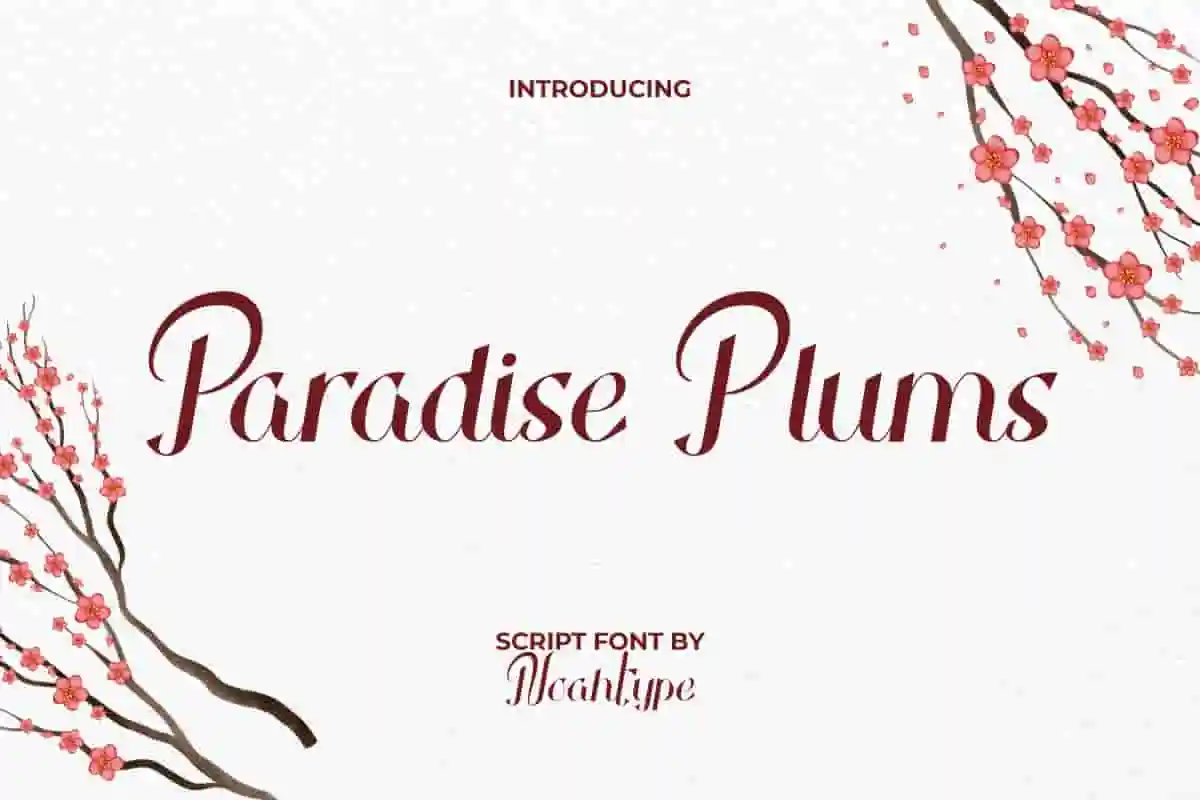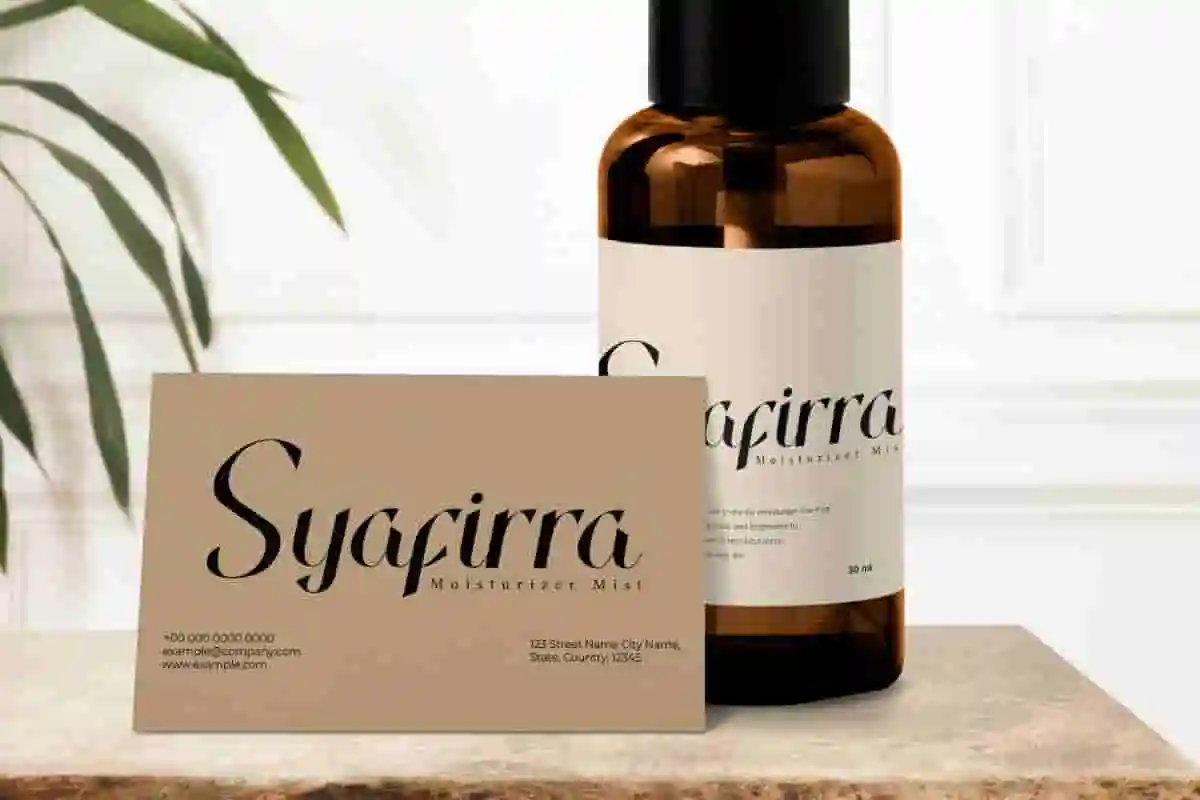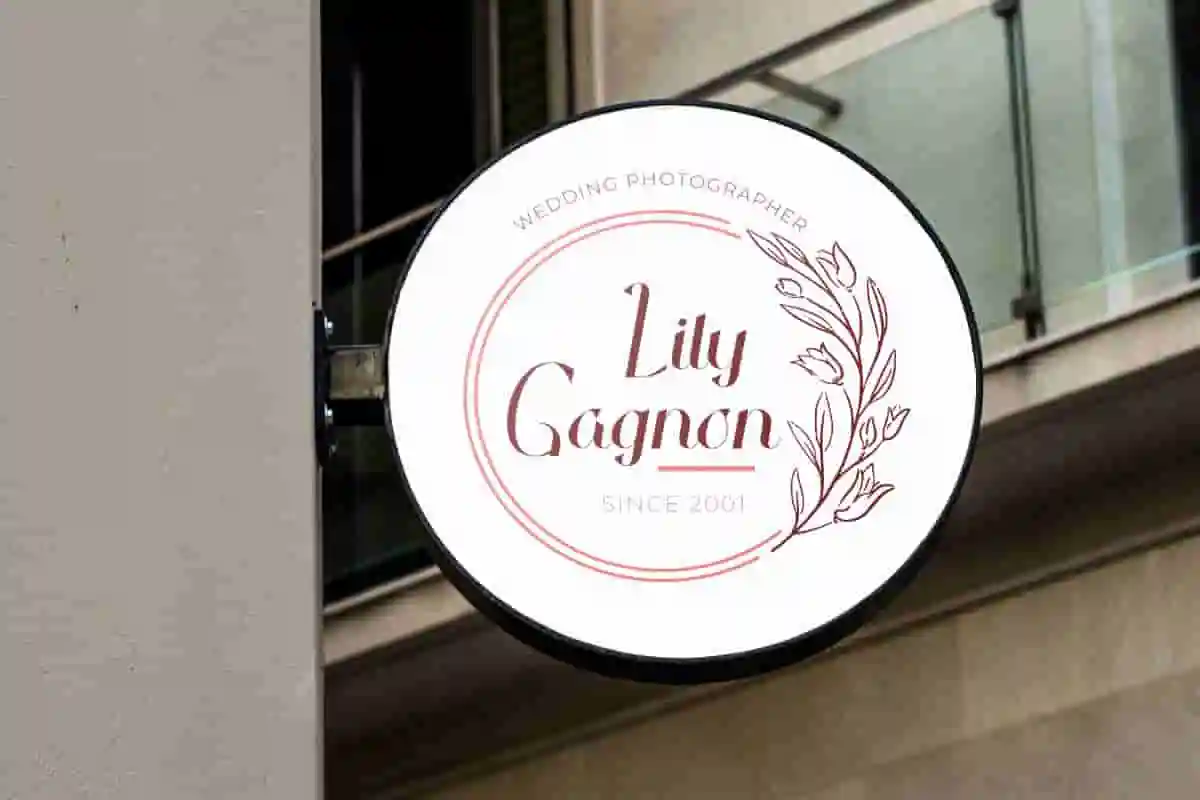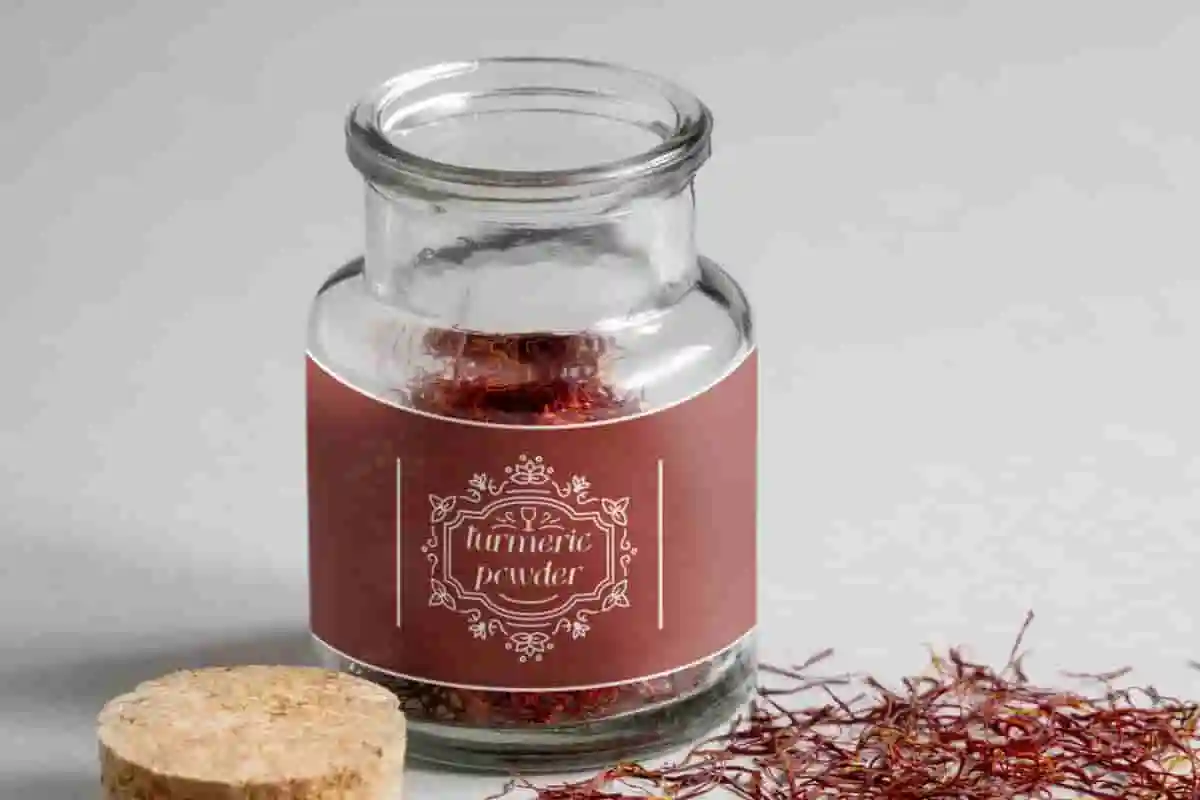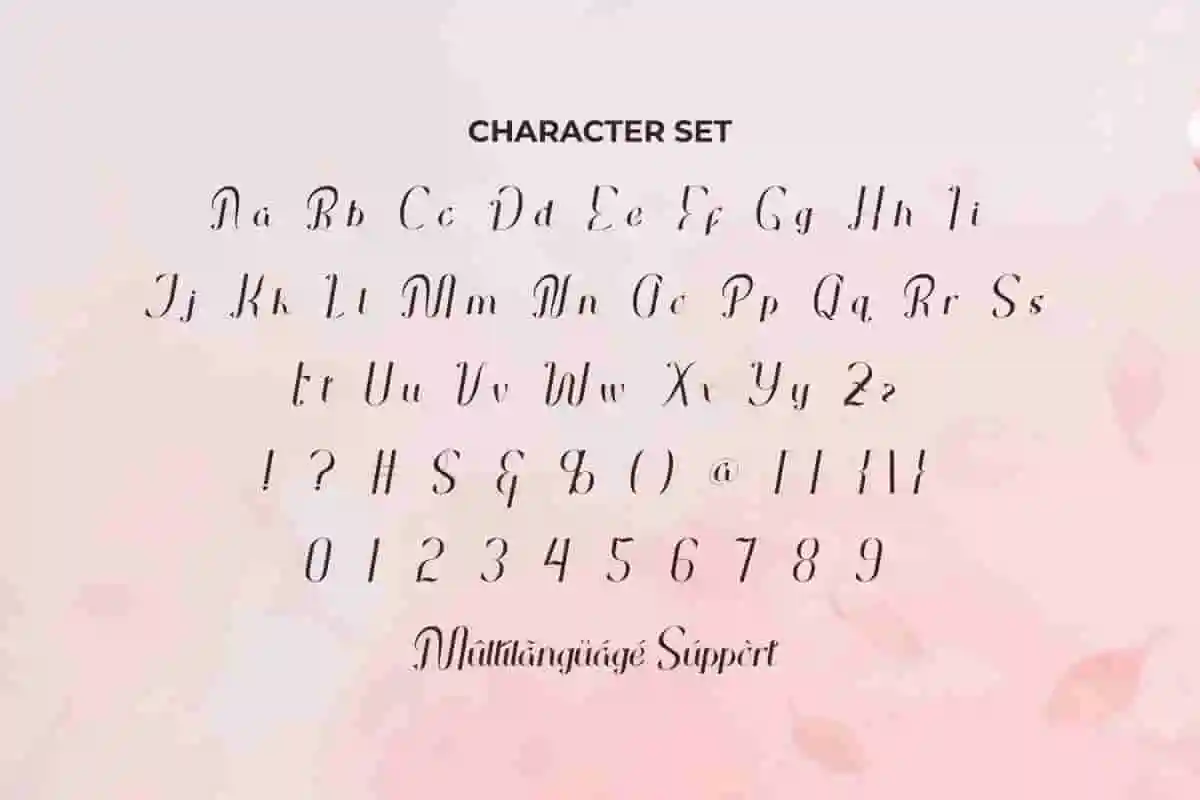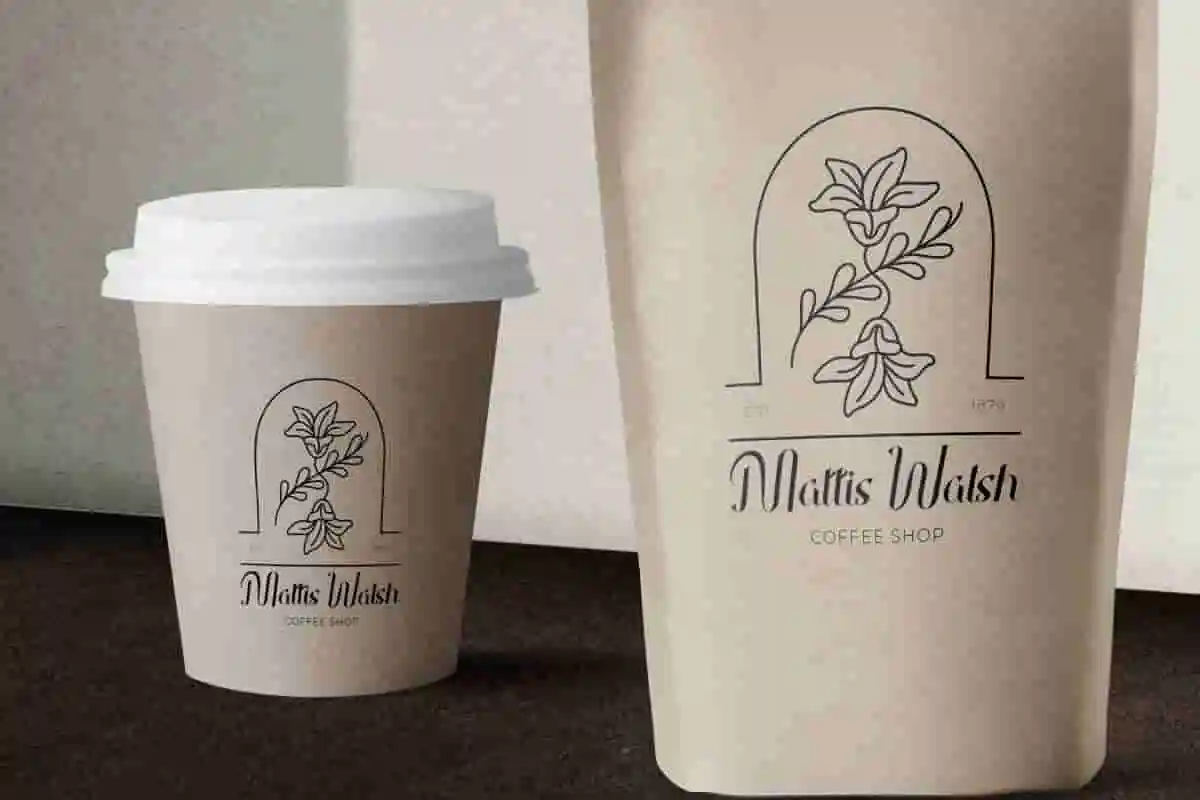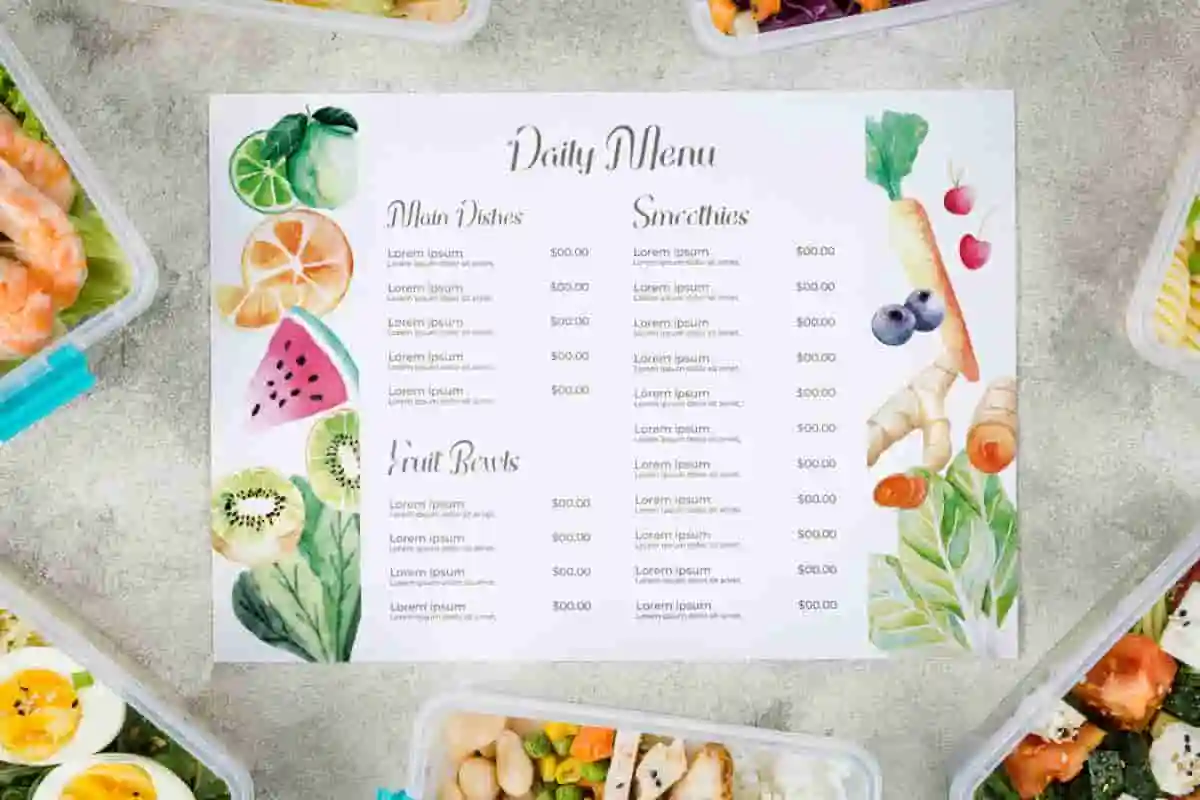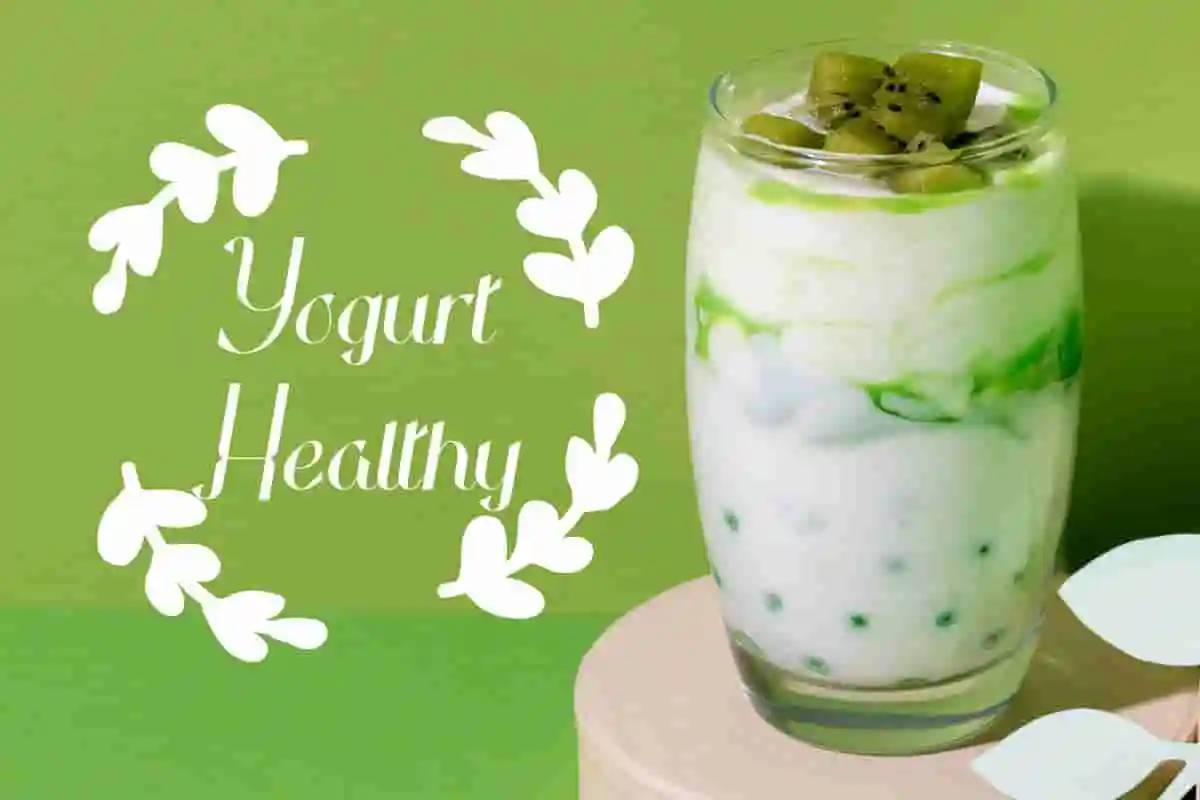
Paradise Plums Font is a flowery script display font by NoahType. This font has an eye-catching shape with small embellishments at the ends and the letters can be connected to the next letter. It will be suitable for any industries, such as advertisement, beauty product, café, event or wedding organizer, fashion, florist, photography, printing, publishing, and more!
Paradise Plums Font includes full set of Uppercase and Lowercase Basic Characters, Numerals, Punctuation, and Symbol. Get inspired and use this beautiful and stunning font in your various designs, such as brand image, brochure, business card, custom design, invitation, label, menu, poster, product packaging, quote, screen printing, stationery, website, and more!